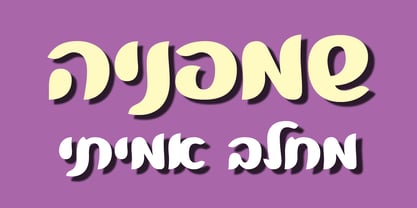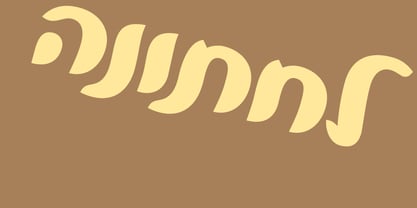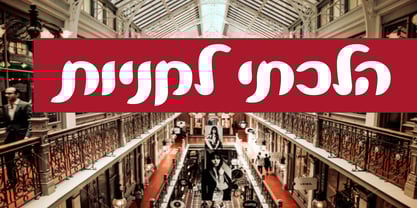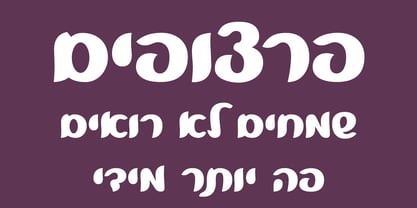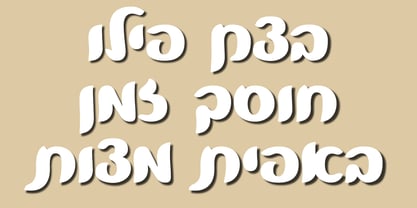
Yearot MF™
by Masterfont
The Yearot MF Font Family was designed by Daniel Levy and published by Masterfont. Yearot MF contains 1 styles. More about this family
Round and tender, full of softness and elegance will be the perfect companion for your next wine label.
Designers: Daniel Levy
Foundry: Masterfont